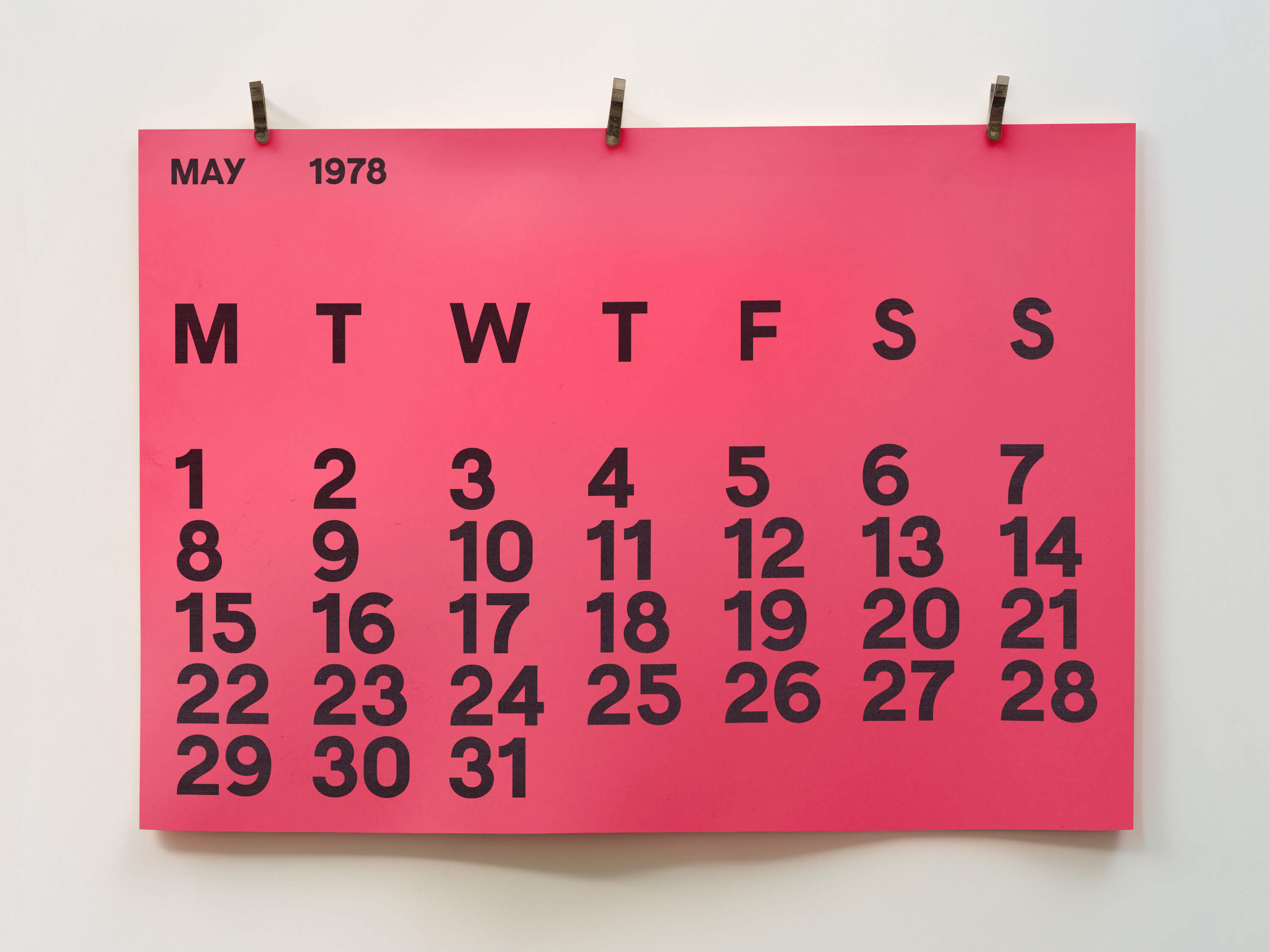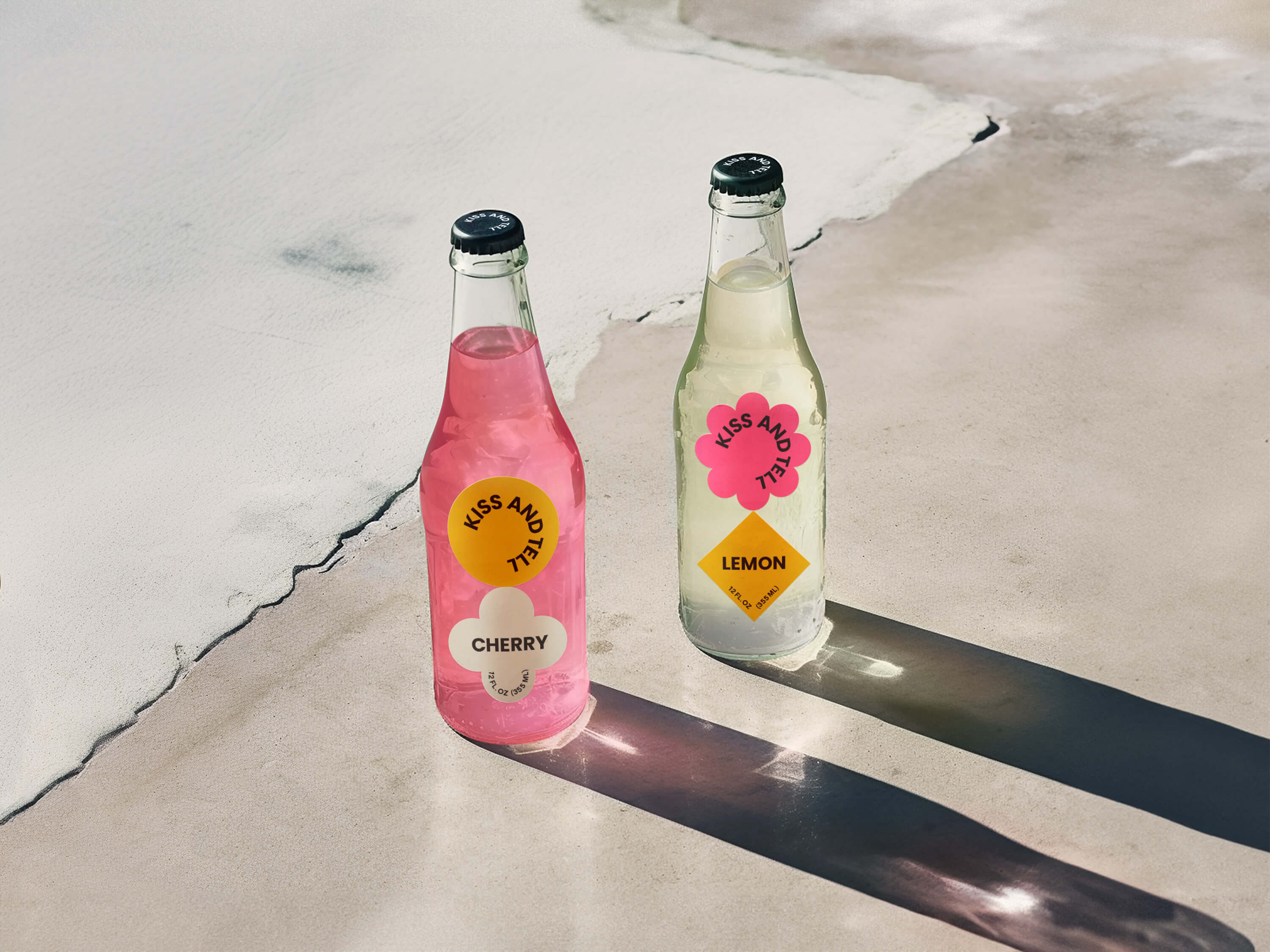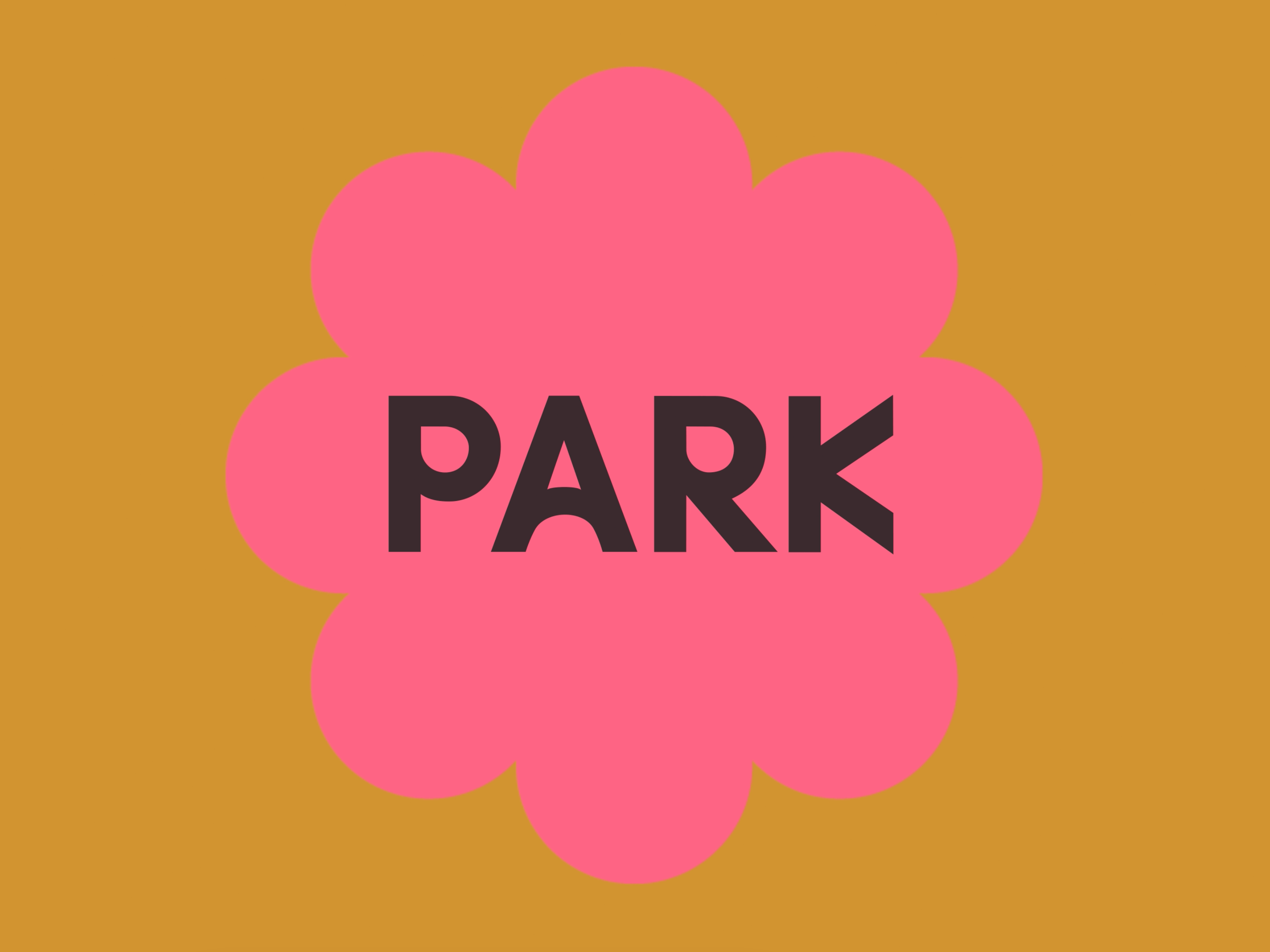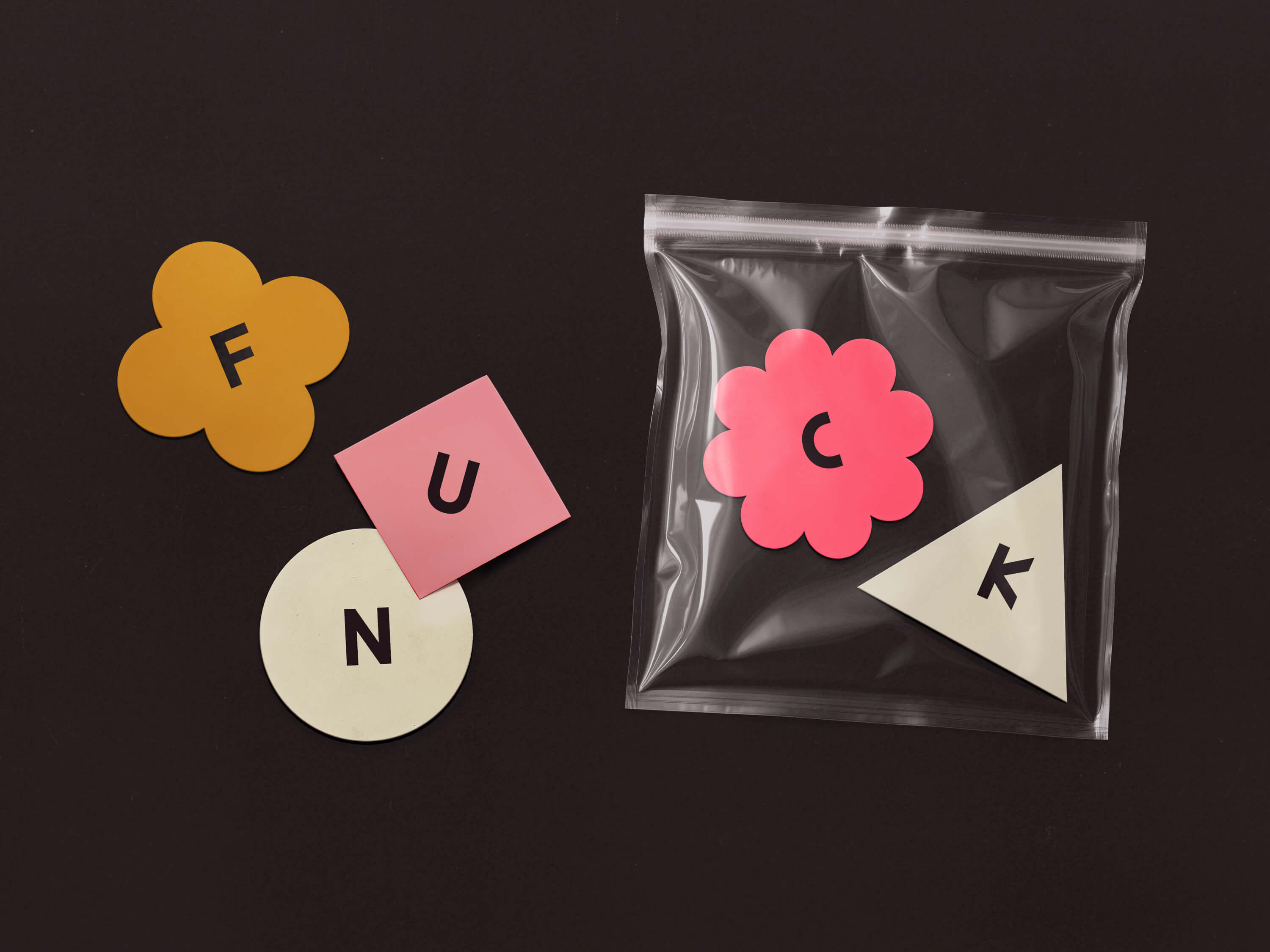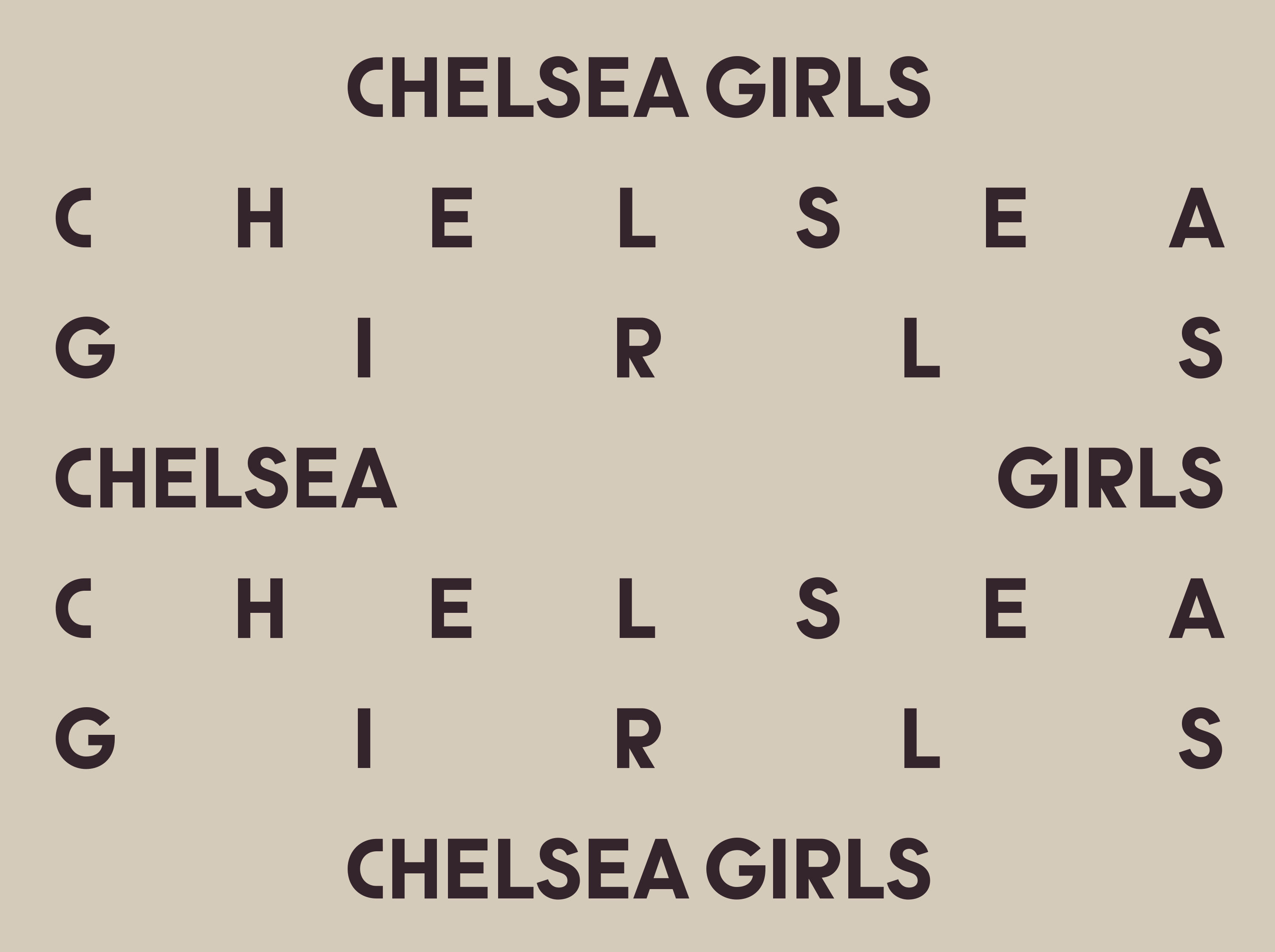
Chelsea Girls is a bold sans serif display font with cheeky details that make it special. The vibrant letterforms are inspired by New York City in the 1970s—experimental art, handpainted signage, and manic nightlife energy. Chelsea Girls comes with a set of alternates, so you can mix and match to your heart’s desire.
Chelsea Girls features all uppercase characters with punctuation, glyphs, diacritics, numerals, and multilingual support. OpenType features include stylistic alternates.